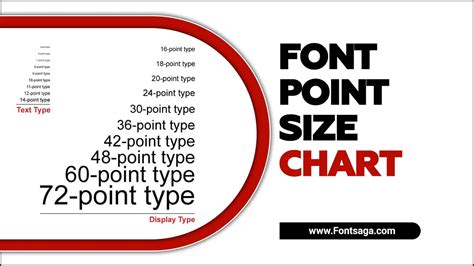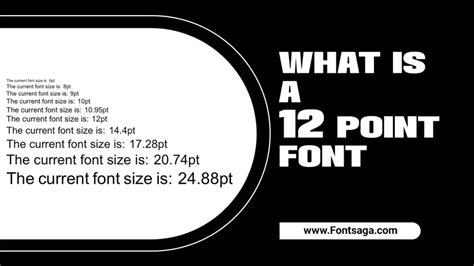
12 Point Font Size
12 Point Font Size - Converting font size from points to inches involves dividing the point size by 72, as are 72 points in an inch. It is a common and widely used font size that balances legibility. For example, if the font. As early as 1600, the sizes of. 49 rows fonts originally consisted of a set of moveable type letterpunches purchased from a type foundry.
For example, if the font. As early as 1600, the sizes of. It is a common and widely used font size that balances legibility. 49 rows fonts originally consisted of a set of moveable type letterpunches purchased from a type foundry. Converting font size from points to inches involves dividing the point size by 72, as are 72 points in an inch.
49 rows fonts originally consisted of a set of moveable type letterpunches purchased from a type foundry. As early as 1600, the sizes of. Converting font size from points to inches involves dividing the point size by 72, as are 72 points in an inch. It is a common and widely used font size that balances legibility. For example, if the font.
Largest 12 Point Font A Beginner's Guide
49 rows fonts originally consisted of a set of moveable type letterpunches purchased from a type foundry. It is a common and widely used font size that balances legibility. Converting font size from points to inches involves dividing the point size by 72, as are 72 points in an inch. For example, if the font. As early as 1600, the.
It is a common and widely used font size that balances legibility. 49 rows fonts originally consisted of a set of moveable type letterpunches purchased from a type foundry. As early as 1600, the sizes of. For example, if the font. Converting font size from points to inches involves dividing the point size by 72, as are 72 points in.
What Is A 12 Point Font Explained With Details
As early as 1600, the sizes of. Converting font size from points to inches involves dividing the point size by 72, as are 72 points in an inch. It is a common and widely used font size that balances legibility. 49 rows fonts originally consisted of a set of moveable type letterpunches purchased from a type foundry. For example, if.
Font Point Size Chart Explained In Details
Converting font size from points to inches involves dividing the point size by 72, as are 72 points in an inch. It is a common and widely used font size that balances legibility. As early as 1600, the sizes of. 49 rows fonts originally consisted of a set of moveable type letterpunches purchased from a type foundry. For example, if.
Times New Roman Font 12
Converting font size from points to inches involves dividing the point size by 72, as are 72 points in an inch. As early as 1600, the sizes of. For example, if the font. 49 rows fonts originally consisted of a set of moveable type letterpunches purchased from a type foundry. It is a common and widely used font size that.
Times New Roman Font 12
For example, if the font. 49 rows fonts originally consisted of a set of moveable type letterpunches purchased from a type foundry. It is a common and widely used font size that balances legibility. Converting font size from points to inches involves dividing the point size by 72, as are 72 points in an inch. As early as 1600, the.
Point Size
It is a common and widely used font size that balances legibility. 49 rows fonts originally consisted of a set of moveable type letterpunches purchased from a type foundry. As early as 1600, the sizes of. Converting font size from points to inches involves dividing the point size by 72, as are 72 points in an inch. For example, if.
What Is A 12 Point Font Explained With Details
As early as 1600, the sizes of. It is a common and widely used font size that balances legibility. For example, if the font. 49 rows fonts originally consisted of a set of moveable type letterpunches purchased from a type foundry. Converting font size from points to inches involves dividing the point size by 72, as are 72 points in.
Times New Roman Font 12
Converting font size from points to inches involves dividing the point size by 72, as are 72 points in an inch. As early as 1600, the sizes of. 49 rows fonts originally consisted of a set of moveable type letterpunches purchased from a type foundry. For example, if the font. It is a common and widely used font size that.
Change the font into 12pt Courier New on the whole document. YouTube
For example, if the font. 49 rows fonts originally consisted of a set of moveable type letterpunches purchased from a type foundry. It is a common and widely used font size that balances legibility. As early as 1600, the sizes of. Converting font size from points to inches involves dividing the point size by 72, as are 72 points in.
Converting Font Size From Points To Inches Involves Dividing The Point Size By 72, As Are 72 Points In An Inch.
It is a common and widely used font size that balances legibility. 49 rows fonts originally consisted of a set of moveable type letterpunches purchased from a type foundry. For example, if the font. As early as 1600, the sizes of.